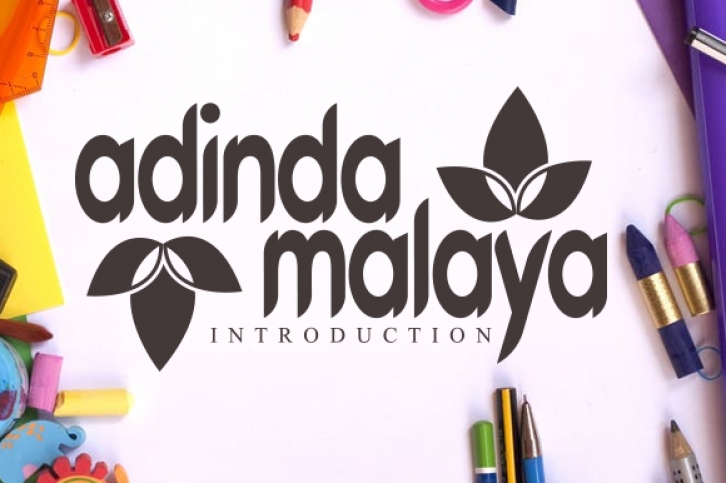
Adinda Malaya is a bold display font, carefully handcrafted to become a true favorite. Its casual charm makes it appear wonderfully down-to-earth, readable and, ultimately, incredibly versatile.